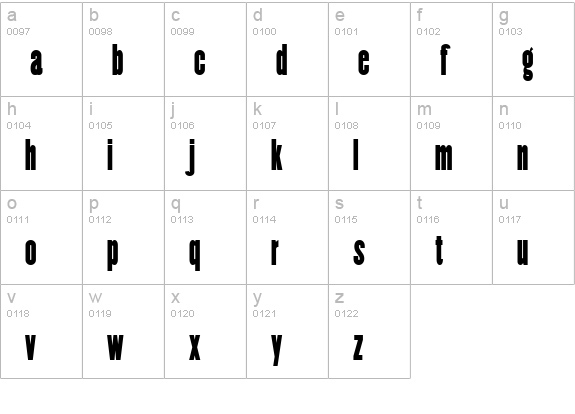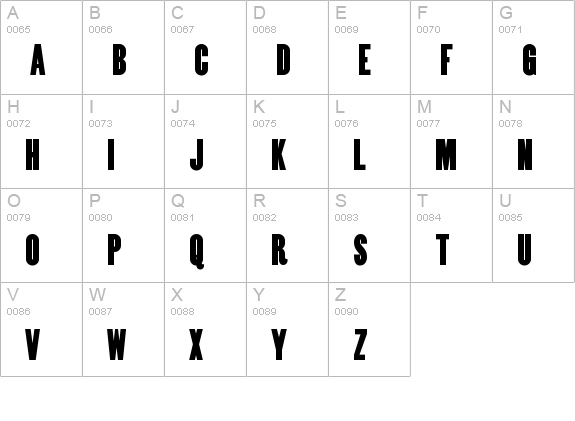
CopperCanyonWBW DemiBold Font Details
CopperCanyonWBW DemiBold is a sub-bold, structured variant in the CopperCanyonWBW typeface family \xE2\x80\x94 well suited to sub-headlines and emphasised passages.
Introducing CopperCanyonWBW DemiBold font, a striking and versatile typeface that exudes modernity and sophistication. With its bold and impactful design, this font is perfect for creating eye-catching headlines, logos, and branding materials. The sleek lines and strong presence of CopperCanyonWBW DemiBold make it a standout choice for any design project that requires a touch of elegance and authority. What makes CopperCanyonWBW DemiBold even more appealing is that it is available for free download at FontsMarket.com. Whether you're a designer looking to add a new font to your collection or someone in need of a stylish typeface for a project, CopperCanyonWBW DemiBold is a fantastic choice that won't cost you a penny. Download this font today and elevate your designs with its timeless appeal and modern flair.